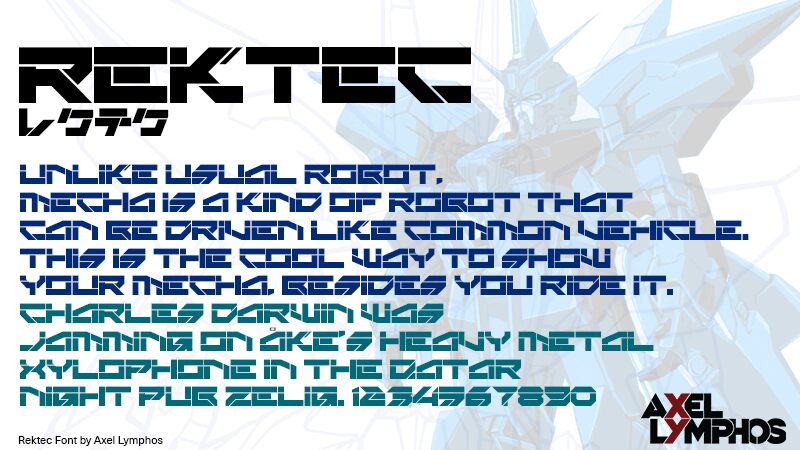
Rektec
Rektec, designed by Axel Lymphos, is a bold statement in the realm of display fonts. With its techno style and extra-expanded width, this typeface exudes a commanding presence that can't be ignored. The bold weight of Rektec ensures that it stands out with assertive confidence.
The aesthetic appeal of Rektec lies in its futuristic vibe; sharp angles and clean lines give it a mechanical precision that's perfect for projects looking to convey innovation and modernity. Its unique character shapes are reminiscent of circuitry and digital age artistry, offering an edgy look that can elevate the visual impact of any design.
Ideal for creative projects that require attention-grabbing headers or standout callouts, Rektec is not just a font but an avant-garde tool tailored for high-impact messaging. Whether used in gaming interfaces, tech start-up branding, or dynamic advertising campaigns, Rektec promises to deliver messages with power and technological flair.
This is the free font that allows Japanese Katakana